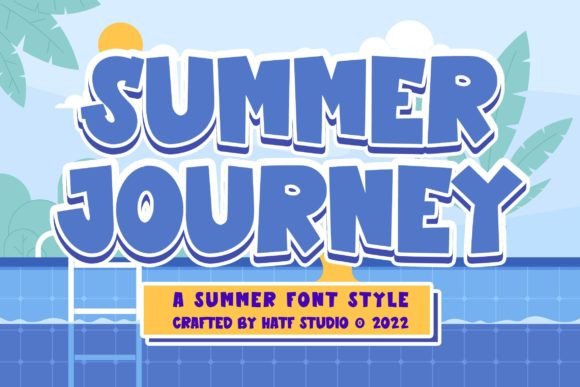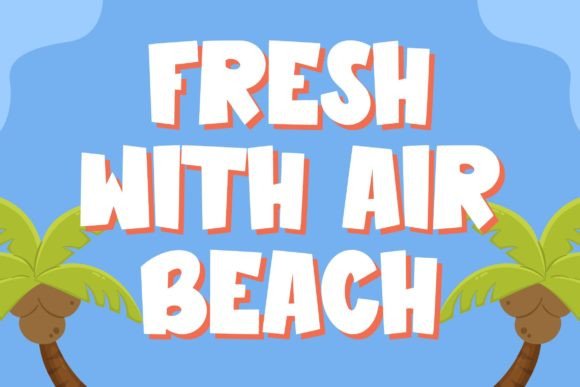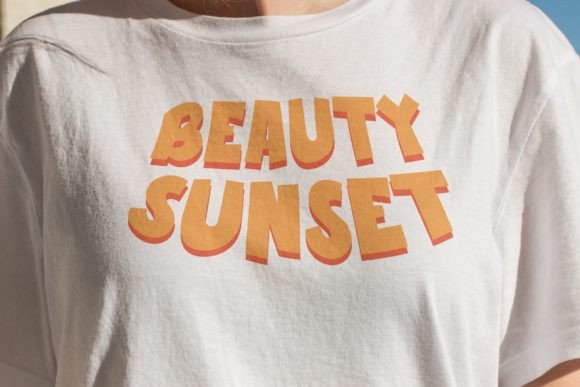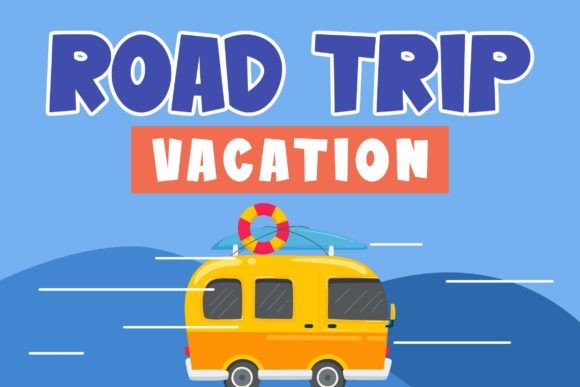
Summer Journey Font
About the Summer Journey Font
Meet Summer Journey Font, a stunning font that brings a touch of elegance and professionalism to any design. Summer Journey is a cool, incredibly cute, and bubbly display font. Add it to each of your party invitations, swimming gathering, or pretty much any design that requires a touch of youth and joy.